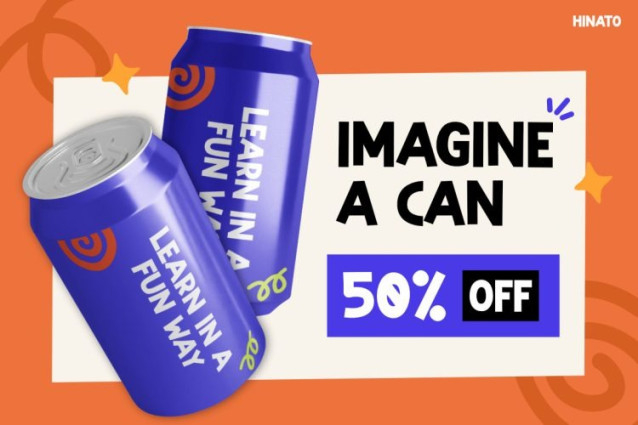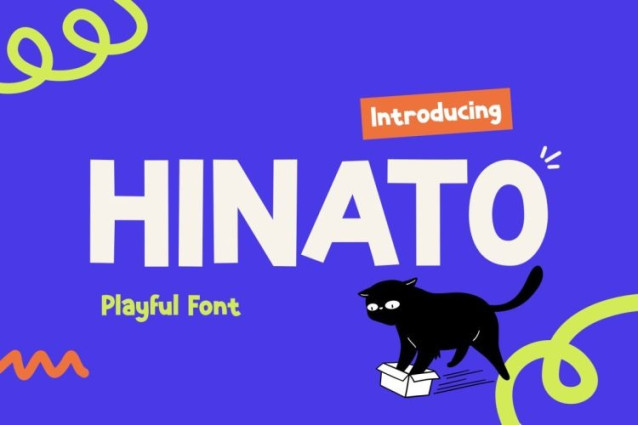
Hinato Font is a joyful and expressive typeface designed to bring instant positivity to any design. From the first look, the font feels friendly and energetic. Moreover, its bold letterforms help messages stand out clearly. The soft, rounded edges create a warm and approachable tone. As a result, the font feels safe and inviting for kids-related visuals. Each character is carefully shaped to look fun and balanced. Because of this, the font remains readable while staying playful. Overall, the aesthetic feels colorful, imaginative, and full of joy.
What makes Kids Font Hinato unique is its strong balance between playfulness and usability. For example, the thick strokes improve visibility at different sizes. At the same time, the smooth curves reduce visual harshness. In addition, the font works well on bright backgrounds and simple layouts. Therefore, it adapts easily to many design styles. This balance allows designers to communicate clearly without losing personality. For this reason, Hinato feels reliable and expressive at once.
Kids Font Hinato is a playful display font created to express happiness and creativity. First of all, its bold shapes make headlines easy to read. In addition, the rounded corners add a soft and friendly character. The font feels energetic but never overwhelming. Because of its clear structure, it works well for short phrases and slogans. Moreover, it includes uppercase, lowercase, numbers, and symbols. As a result, designers can maintain visual consistency. Whether for print or digital use, the font stays fun and functional.
Kids Font Hinato is ideal for designers working on children-focused projects. For instance, it fits children’s books, school materials, and learning visuals. Moreover, it works well for toy packaging and kids fashion branding. Content creators can also use it for social media and thumbnails. In addition, teachers may apply it to classroom designs. Small businesses benefit from its friendly branding tone. Therefore, the font suits posters, banners, and playful campaigns. Overall, it is perfect for anyone seeking a joyful visual voice.